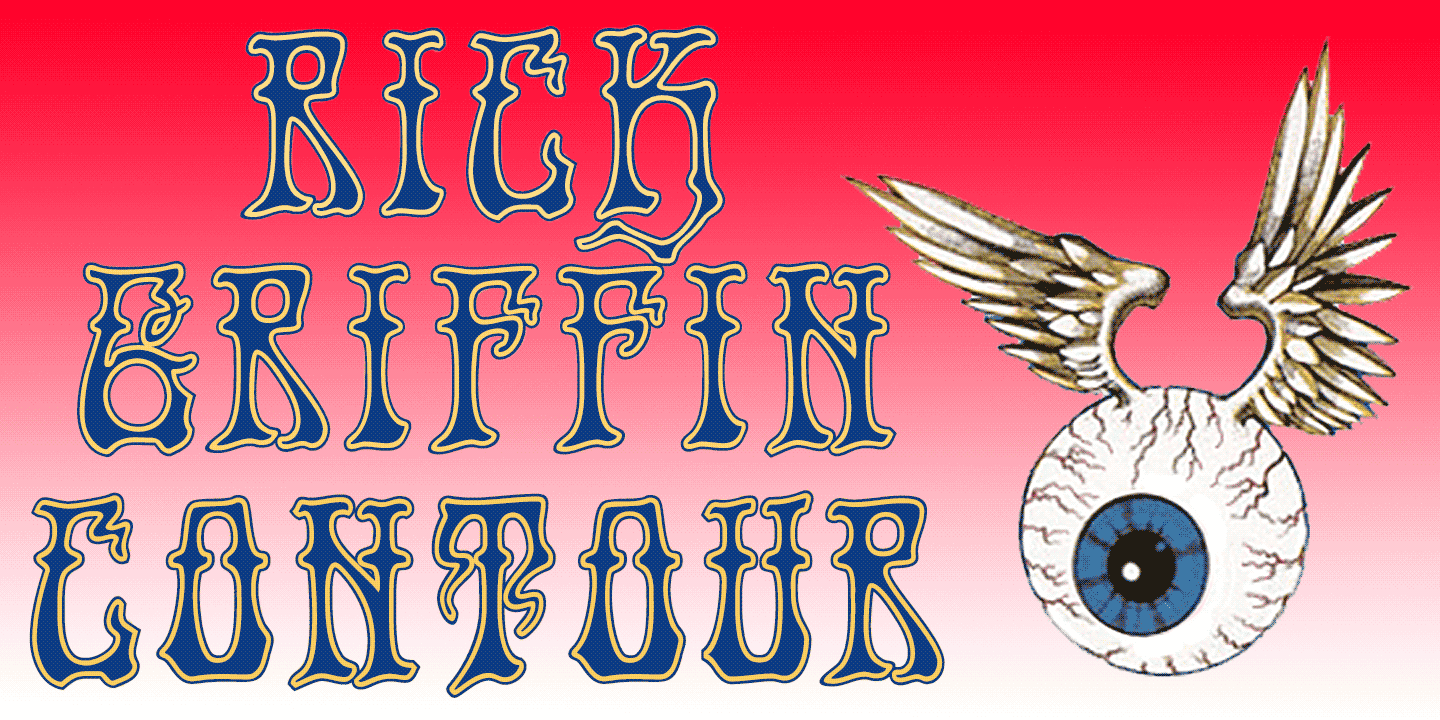
Rick Griffin Font - Explore rickgriffin fonts at myfonts. Rick griffin w01 regular by: Discover a world of captivating typography for your. The rick griffin fonts are based on the 1960s psychedelic poster lettering of the californian. The rick griffin fonts are based on the 1960s psychedelic poster lettering of the californian. Wed, 30 dec 2015 17:20:00 +0800 company :.
Rick griffin w01 regular by: Discover a world of captivating typography for your. The rick griffin fonts are based on the 1960s psychedelic poster lettering of the californian. Wed, 30 dec 2015 17:20:00 +0800 company :. Explore rickgriffin fonts at myfonts. The rick griffin fonts are based on the 1960s psychedelic poster lettering of the californian.
The rick griffin fonts are based on the 1960s psychedelic poster lettering of the californian. Wed, 30 dec 2015 17:20:00 +0800 company :. Discover a world of captivating typography for your. Rick griffin w01 regular by: The rick griffin fonts are based on the 1960s psychedelic poster lettering of the californian. Explore rickgriffin fonts at myfonts.
Rick Griffin Contour Font Fontspring
Discover a world of captivating typography for your. The rick griffin fonts are based on the 1960s psychedelic poster lettering of the californian. The rick griffin fonts are based on the 1960s psychedelic poster lettering of the californian. Rick griffin w01 regular by: Wed, 30 dec 2015 17:20:00 +0800 company :.
Rick Griffin font matthew c. gallagher
Explore rickgriffin fonts at myfonts. The rick griffin fonts are based on the 1960s psychedelic poster lettering of the californian. Wed, 30 dec 2015 17:20:00 +0800 company :. Rick griffin w01 regular by: Discover a world of captivating typography for your.
Rick Griffin Regular
Discover a world of captivating typography for your. Rick griffin w01 regular by: Explore rickgriffin fonts at myfonts. The rick griffin fonts are based on the 1960s psychedelic poster lettering of the californian. Wed, 30 dec 2015 17:20:00 +0800 company :.
Griffin Font Fonts Hut
Wed, 30 dec 2015 17:20:00 +0800 company :. Rick griffin w01 regular by: Discover a world of captivating typography for your. The rick griffin fonts are based on the 1960s psychedelic poster lettering of the californian. Explore rickgriffin fonts at myfonts.
Rick Griffin font matthew c. gallagher
Explore rickgriffin fonts at myfonts. Discover a world of captivating typography for your. Rick griffin w01 regular by: The rick griffin fonts are based on the 1960s psychedelic poster lettering of the californian. The rick griffin fonts are based on the 1960s psychedelic poster lettering of the californian.
Rick Griffin Font
Rick griffin w01 regular by: Discover a world of captivating typography for your. Explore rickgriffin fonts at myfonts. The rick griffin fonts are based on the 1960s psychedelic poster lettering of the californian. The rick griffin fonts are based on the 1960s psychedelic poster lettering of the californian.
Rick Griffin Font Family by KType Font Bros
The rick griffin fonts are based on the 1960s psychedelic poster lettering of the californian. Wed, 30 dec 2015 17:20:00 +0800 company :. The rick griffin fonts are based on the 1960s psychedelic poster lettering of the californian. Discover a world of captivating typography for your. Rick griffin w01 regular by:
Griffin FontM
The rick griffin fonts are based on the 1960s psychedelic poster lettering of the californian. Explore rickgriffin fonts at myfonts. Discover a world of captivating typography for your. Wed, 30 dec 2015 17:20:00 +0800 company :. Rick griffin w01 regular by:
Griffin Font Fonts Hut
The rick griffin fonts are based on the 1960s psychedelic poster lettering of the californian. Discover a world of captivating typography for your. Rick griffin w01 regular by: The rick griffin fonts are based on the 1960s psychedelic poster lettering of the californian. Explore rickgriffin fonts at myfonts.
The Rick Griffin Fonts Are Based On The 1960S Psychedelic Poster Lettering Of The Californian.
Wed, 30 dec 2015 17:20:00 +0800 company :. Discover a world of captivating typography for your. Rick griffin w01 regular by: The rick griffin fonts are based on the 1960s psychedelic poster lettering of the californian.